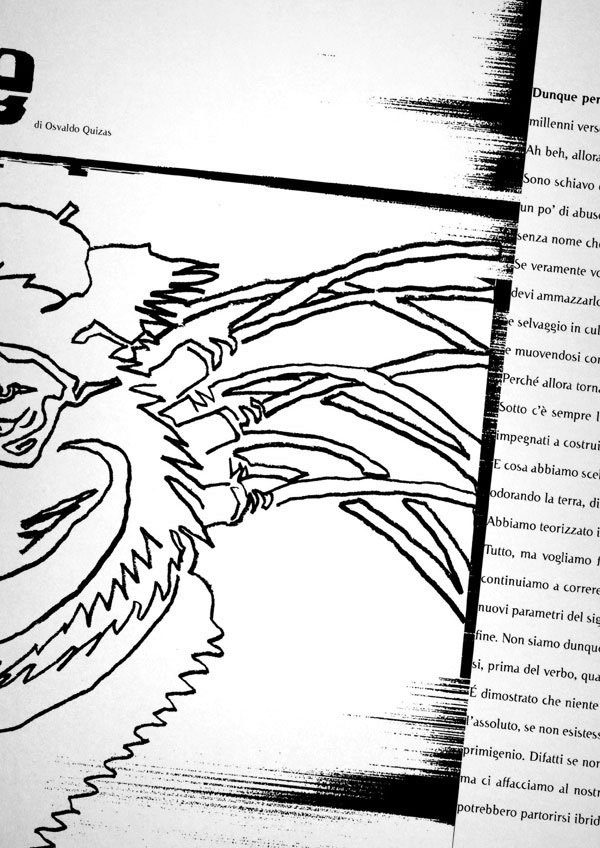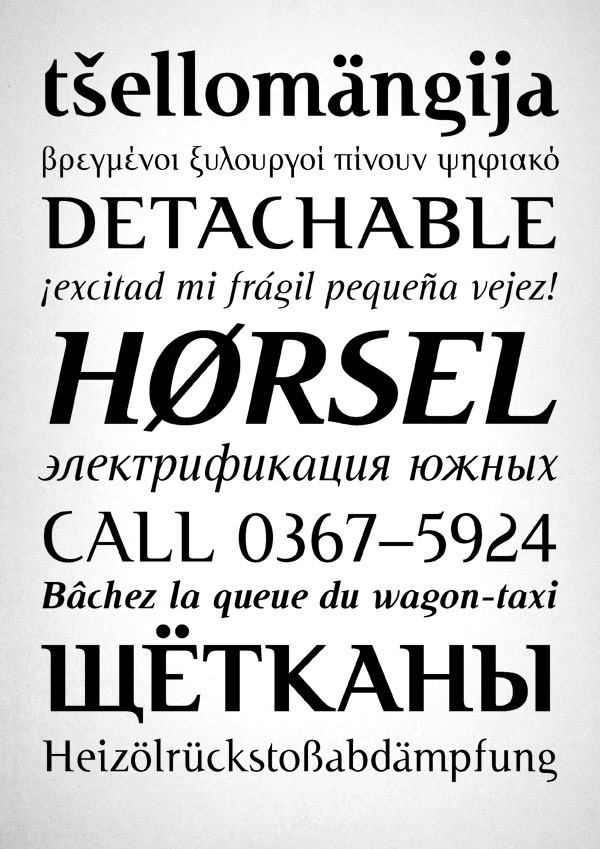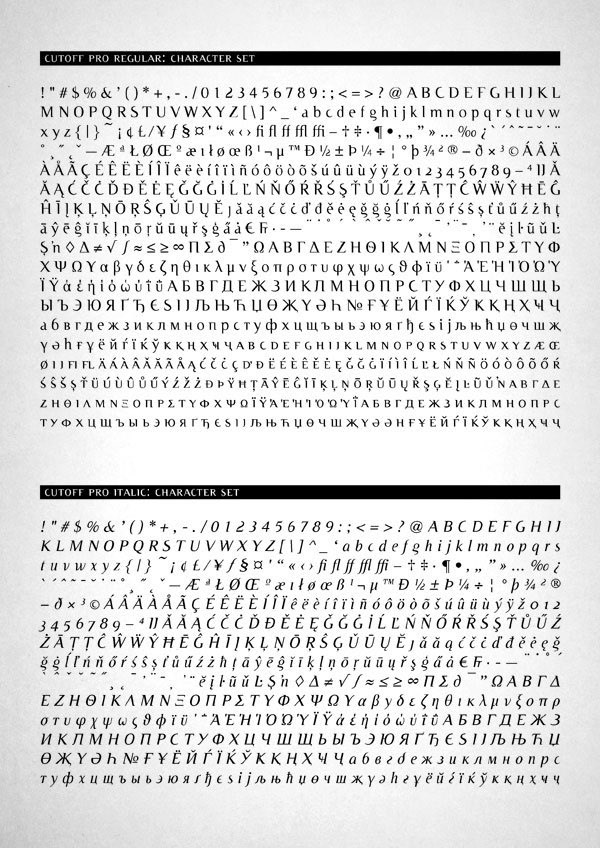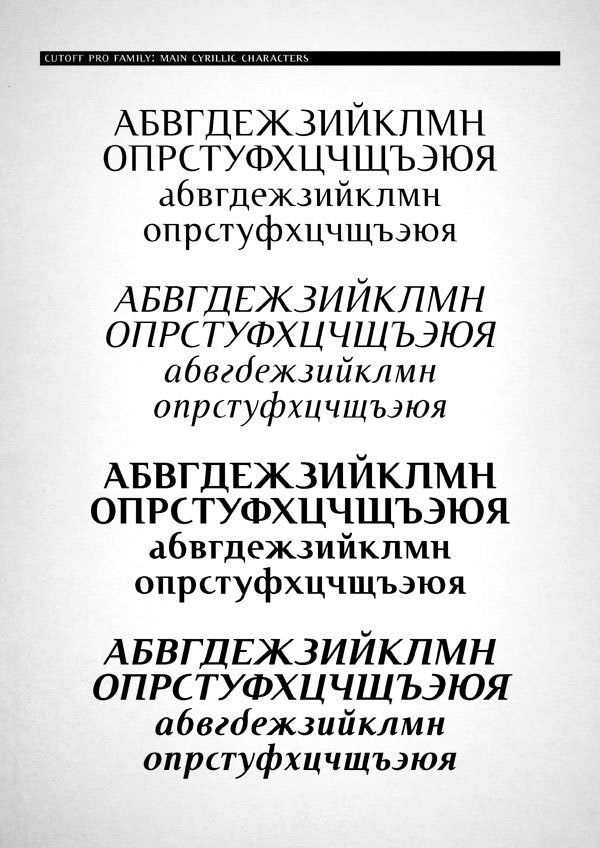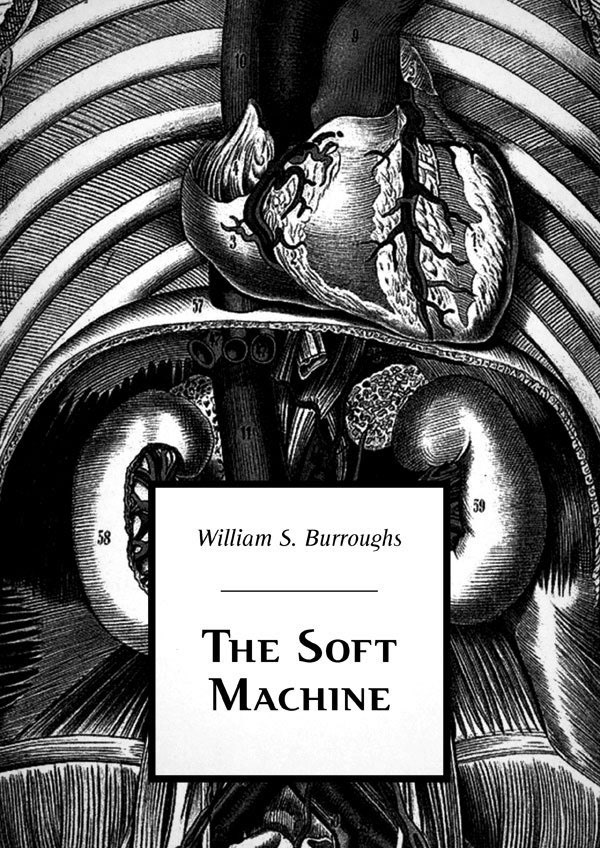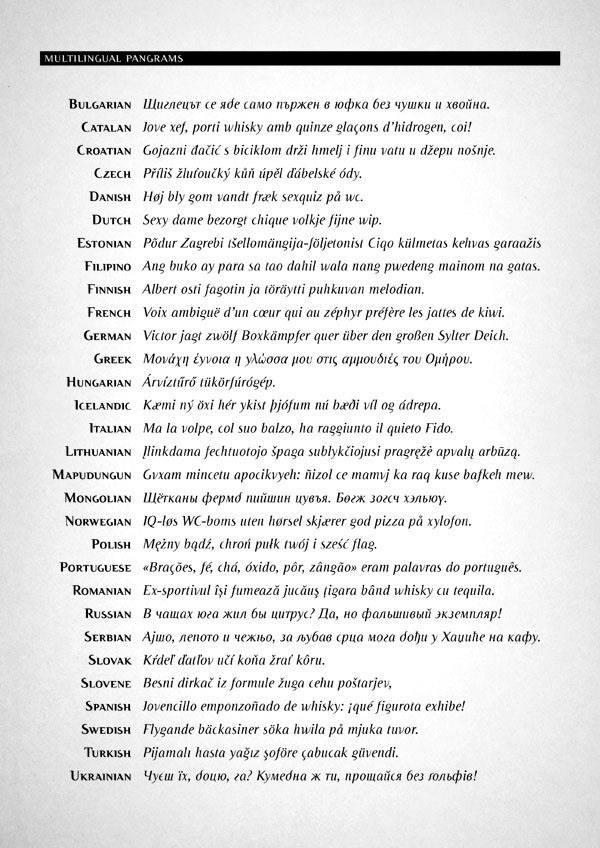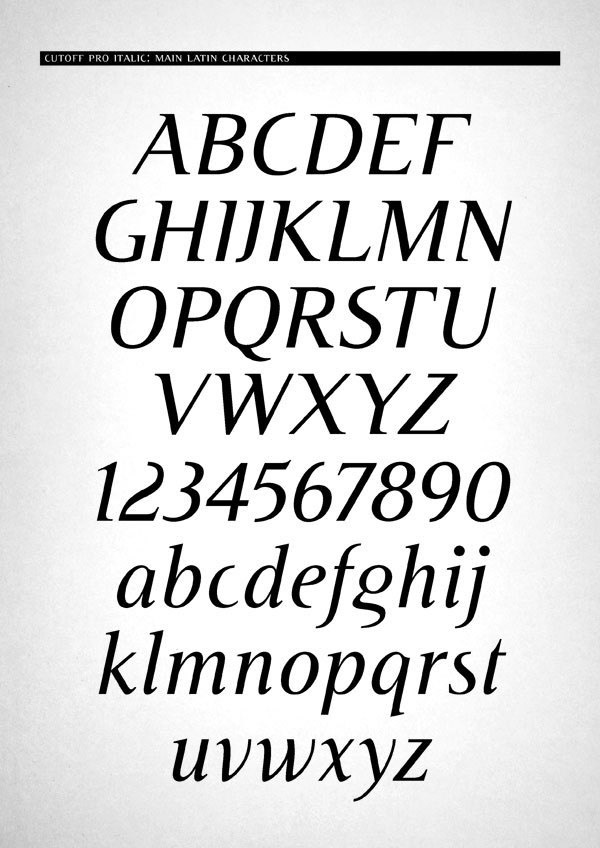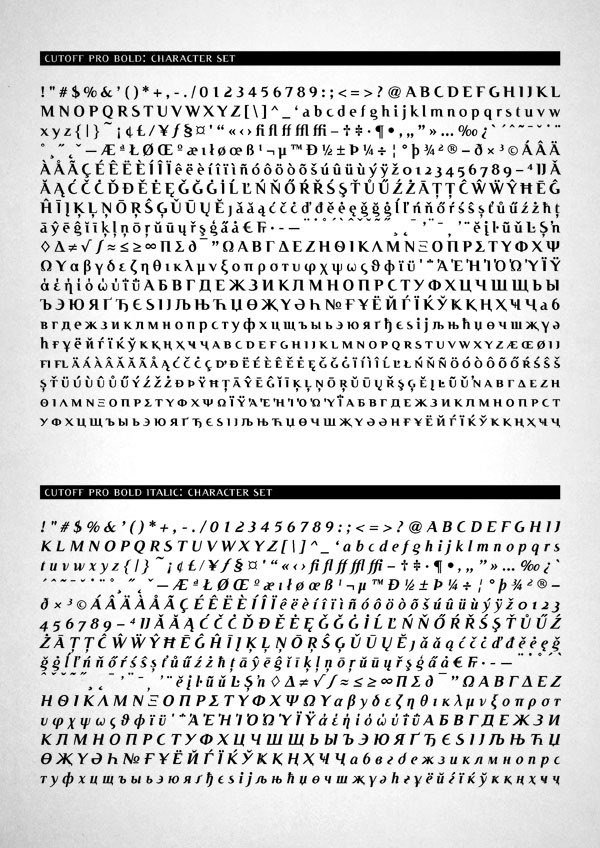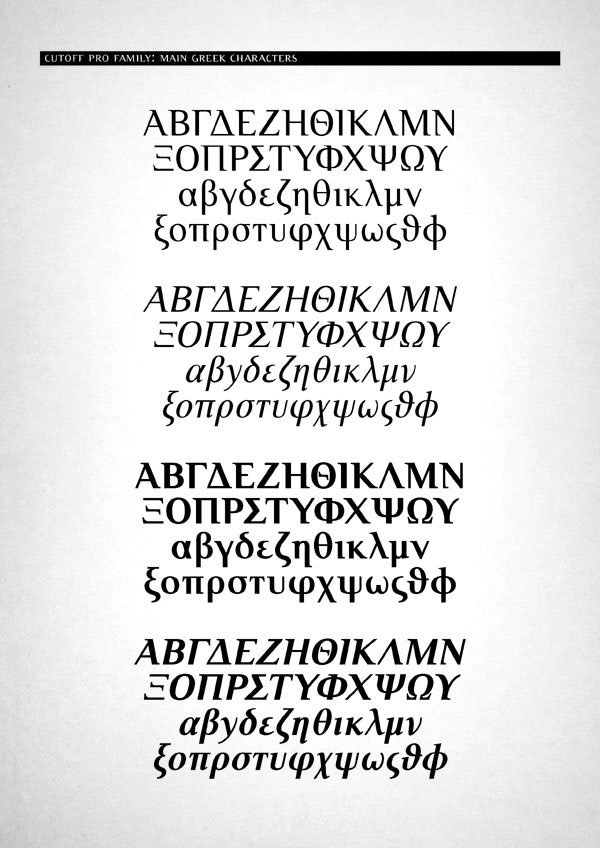
Cutoff Pro™ is a typeface family developed in 4 styles and released through URW++
The first plain weight of Cutoff was designed in 2005 to be used in Miele, an independent Italian free magazine. The need was for an elegant, unusual and legible semi-serif with contemporary flavour. I was fascinated by the deconstructivist work of Jeff Keedy (Hard Times Thick), Phil Baines (Can You, You Can) and Otl Aicher (Rotis), so my aim was to get the feeling of a cut transitional typeface; at the same time felt the exigence to work on the whole shape of the glyphs, in order to soften the 90s deconstructivist effect and obtain a more balanced and readable design.
In the following years I further worked on the typeface adding the other styles, extending the character set and refining the letterforms. Finally the precious collaboration with URW++ brought in 2010 to a complete OpenType Pro font family, with multilingual and advanced typographic features.
• Designer: Fulvio Bisca
• Design year: 2005-2010
• Release date: September 2010
• Publisher: URW++
• Glyph coverage: Latin, West Europe, Central Europe, Baltic, Turkish, Romanian, Cyrillic, Greek
• Glyph count: Regular=835; Italic=620; Bold=835; Bold-Italic=620; Total=2910